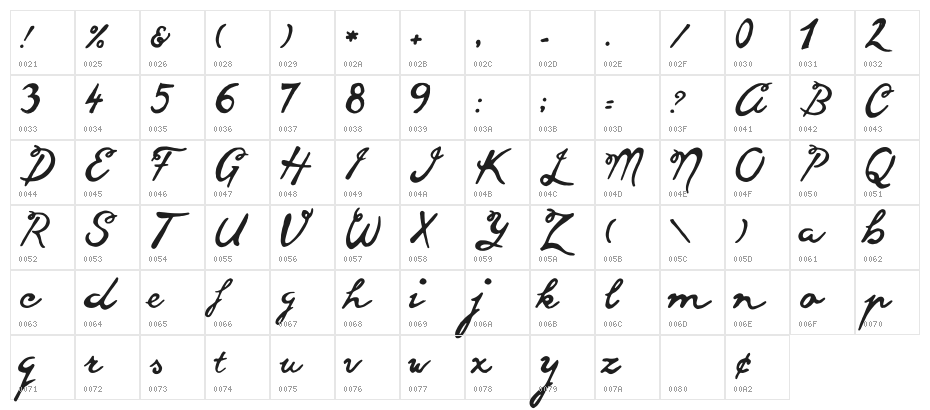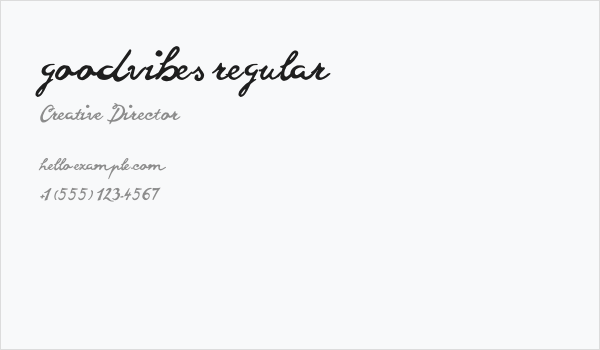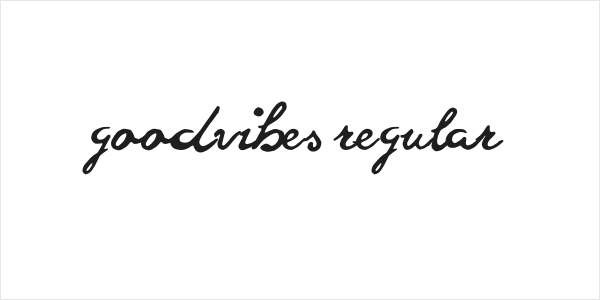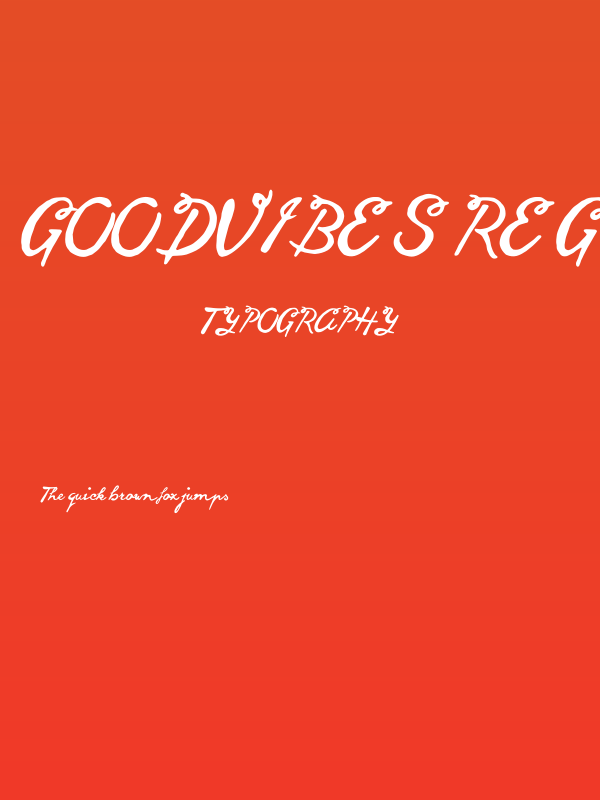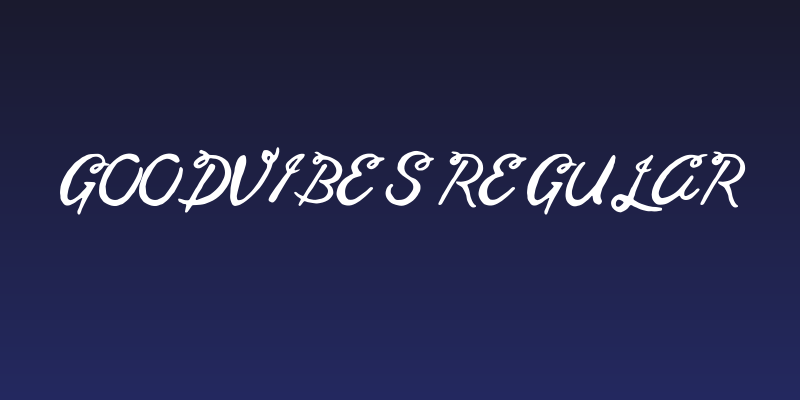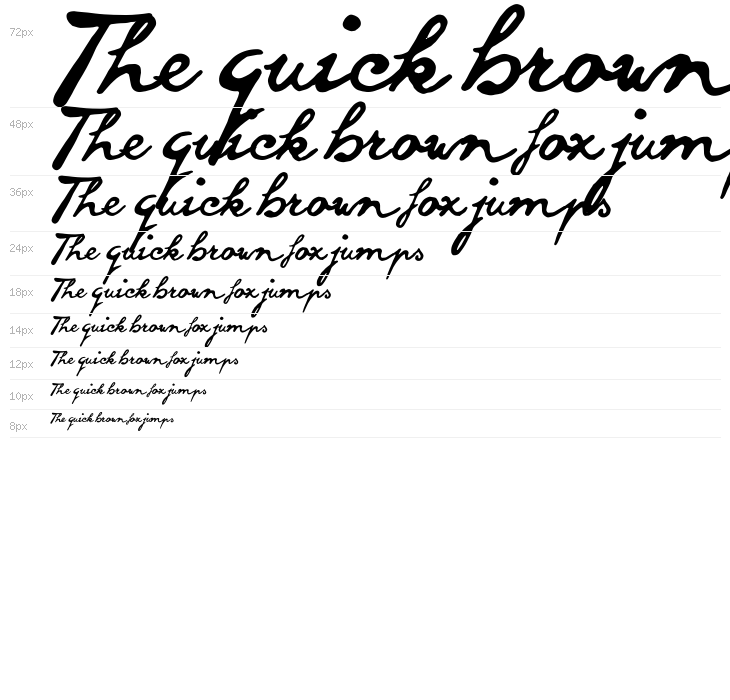
goodvibes regular Font
goodvibes regular Description
This font exudes a lively and energetic vibe with its flowing, cursive style. The characters are interconnected, creating a seamless and dynamic appearance. The uppercase letters maintain a consistent height, while the lowercase letters exhibit a playful bounce, adding to the font's whimsical charm. The numerals and special characters are crafted with the same fluidity, ensuring a cohesive look across all elements. This font's unique style makes it ideal for projects that require a personal touch or a sense of movement and creativity.
Fonts by Peter Olexa
| Use Case | Logos, Invitations, Creative projects |
| Proposed Projects | Ideal for greeting cards, invitations, branding, and creative projects that require a personal touch. |